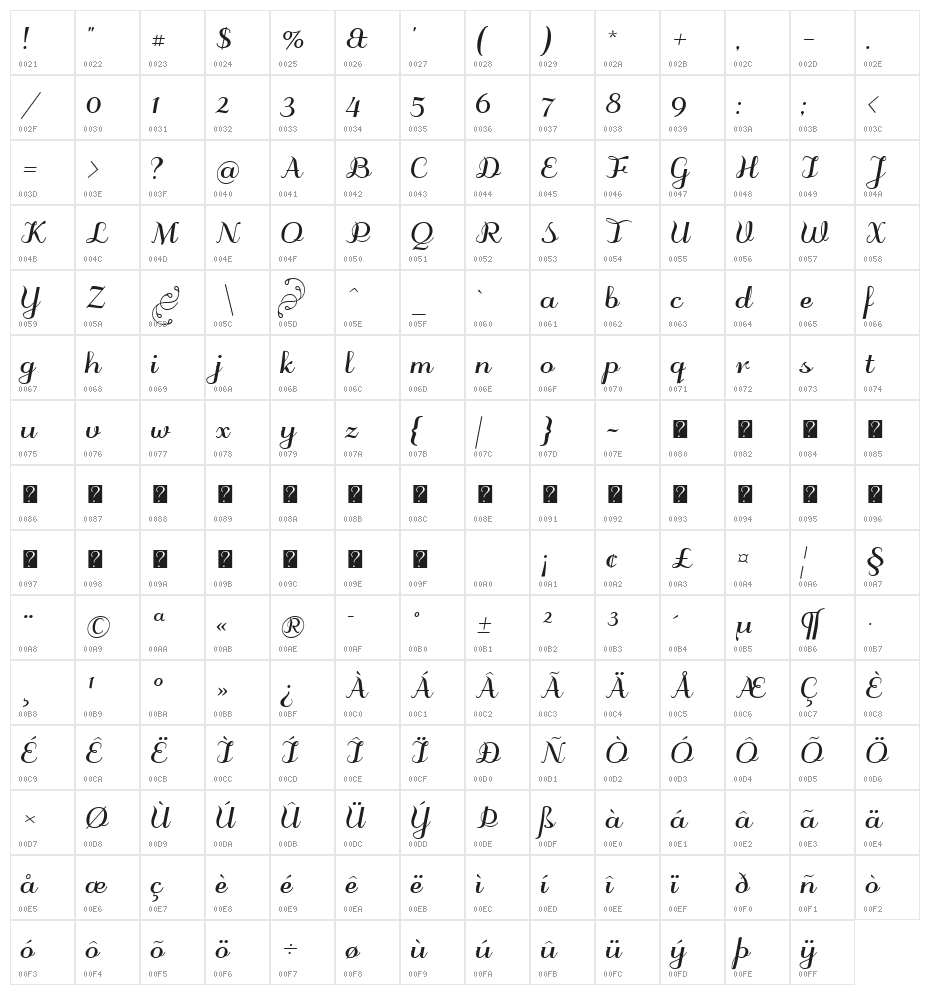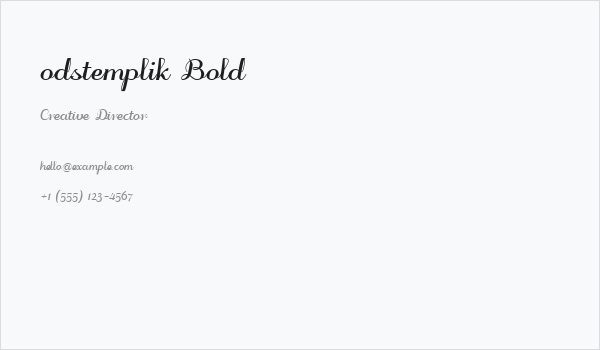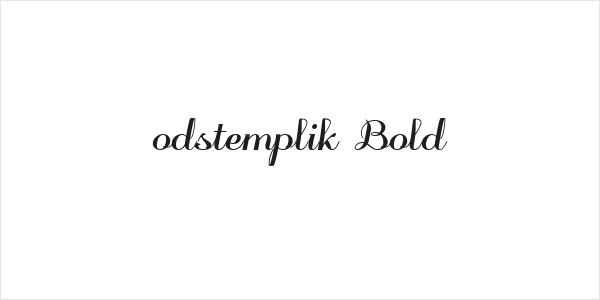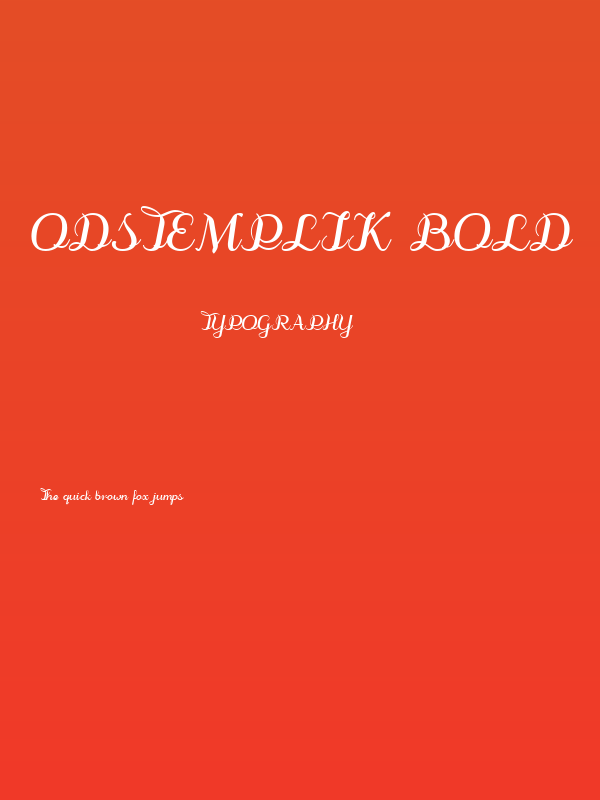
odstemplik Bold Font
odstemplik Bold Description
This font features a sophisticated and elegant script style with a flowing, cursive design. The uppercase letters are characterized by their graceful loops and swashes, giving them a sense of movement and fluidity. The lowercase letters maintain a consistent style, with smooth curves and a slightly slanted orientation, enhancing the overall elegance. The numerals are clear and distinct, maintaining the script's aesthetic while ensuring readability. Special characters are thoughtfully designed to match the font's overall style, making it versatile for various uses. The font's bold weight adds a sense of strength and presence, making it suitable for impactful designs.
| Proposed Projects | Ideal for wedding invitations, elegant branding, greeting cards, and high-end product packaging. |